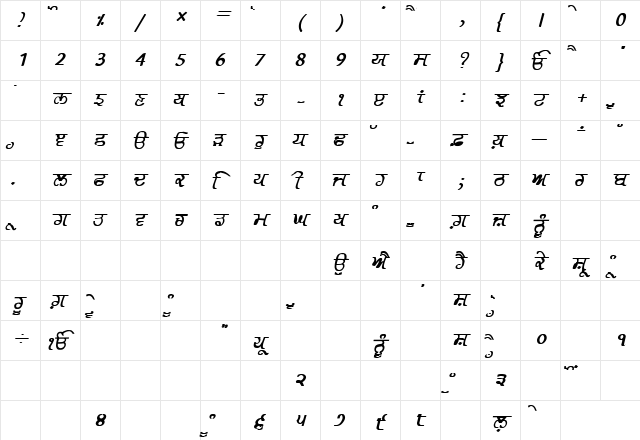
GurmukhiLys 030 Bold Italic
Design Context for GurmukhiLys 030 Typeface
GurmukhiLys 030 is a composed and adaptable typeface that performs quietly and consistently across a wide range of design contexts. The slanted form adds forward momentum and visual energy. Its bold stroke weight gives it real presence on the page.
Pro Tip: Try GurmukhiLys 030 for annotation and caption copy alongside an upright companion — the contrast in angle creates a dynamic but ordered typographic system.